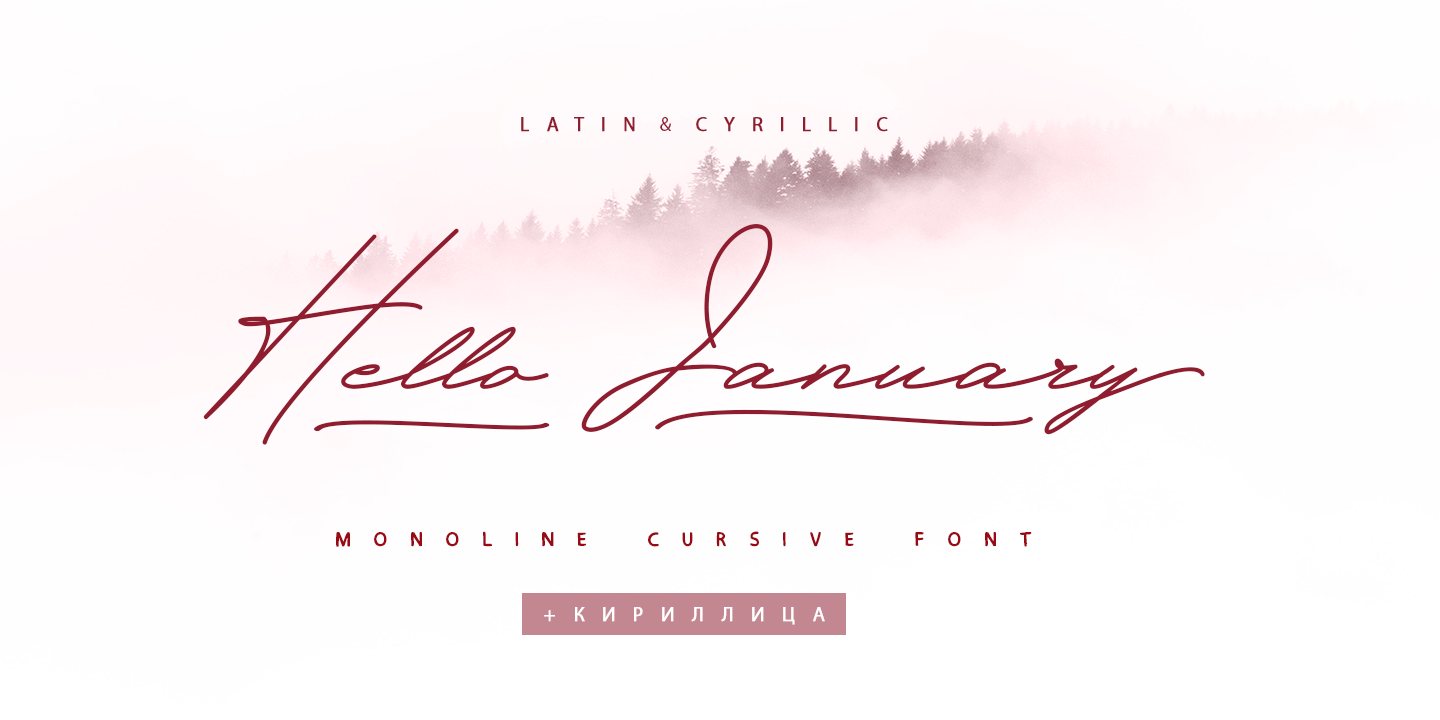
Hello January Cyrillic Font is perfect for winter holiday designs, New Year greeting cards, seasonal marketing campaigns, Russian language publications, Eastern European branding projects, multilingual websites, calendar designs, festive invitations, and cultural celebration materials. This versatile typeface excels in both digital applications and traditional print media across Cyrillic-speaking regions.
What makes Hello January Cyrillic Font exciting is its seamless blend of seasonal warmth and authentic Cyrillic character representation. The carefully crafted letterforms capture the spirit of winter celebrations while maintaining perfect readability in both Latin and Cyrillic scripts. Its friendly appearance creates an inviting atmosphere that resonates with audiences across different cultural backgrounds and languages.
The Hello January Cyrillic Font family includes comprehensive variations: Regular, Bold, Light, Medium, Italic styles, and Extended character sets supporting Russian, Ukrainian, Bulgarian, Serbian, and other Cyrillic languages. Each family member maintains consistent design principles while offering different visual impacts for diverse multilingual design needs.
Hello January Cyrillic Font Free Download offers designers an exceptional solution for creating engaging multilingual content that spans cultural boundaries. This remarkable typeface combines seasonal charm with technical precision, making it ideal for international marketing campaigns, educational materials, cultural publications, and holiday-themed projects targeting Cyrillic-speaking audiences. The font's distinctive characteristics include smooth curves, balanced spacing, and authentic Cyrillic letterform proportions that respect traditional typography standards.
Professional designers appreciate Hello January Cyrillic Font for its versatility across different cultural contexts and seasonal applications. Whether creating New Year campaigns, winter product packaging, or multilingual educational resources, this font maintains its visual appeal and cultural authenticity. The typeface supports extensive character sets and includes special symbols relevant to Eastern European and Russian typography traditions.
The development of Hello January Cyrillic Font focused on creating a typeface that bridges seasonal design trends with authentic multilingual functionality. Its welcoming personality shines through in headlines while remaining highly legible in body text applications across different languages. The font's organic curves and precise character details create visual harmony that enhances cross-cultural communication.
For graphic designers working on international projects, Hello January Cyrillic Font provides exceptional flexibility and cultural sensitivity. Its charming appearance works beautifully in seasonal advertising, yet maintains professional quality for corporate multilingual communications. The font's premium construction ensures consistent results across various platforms and languages.